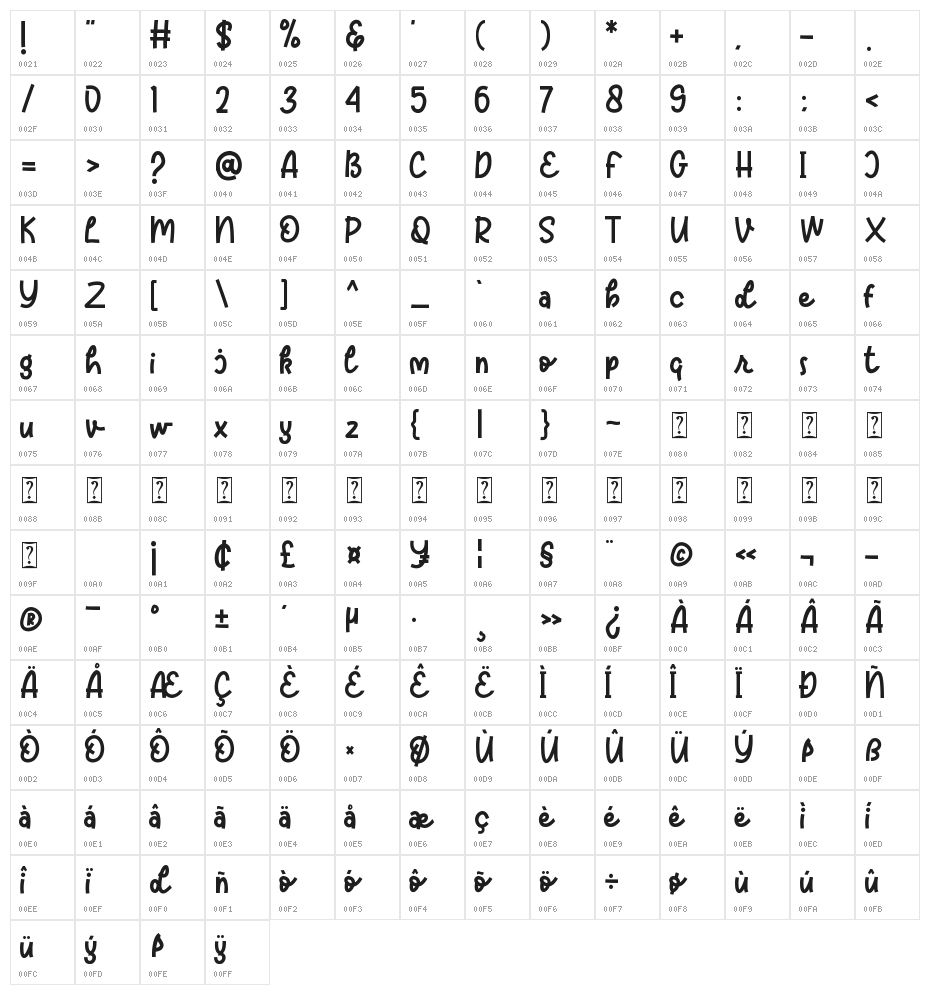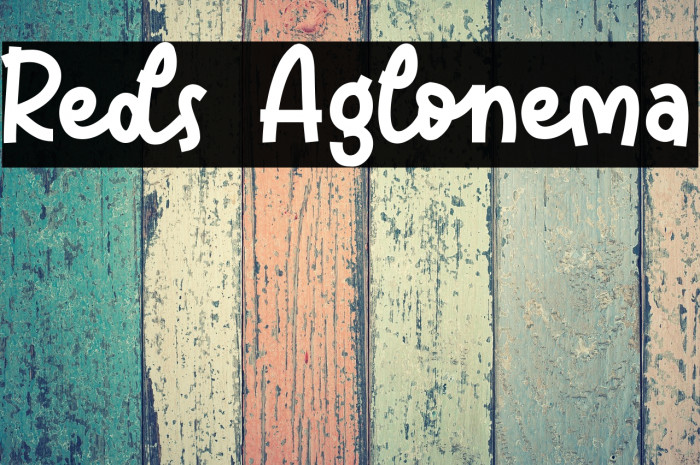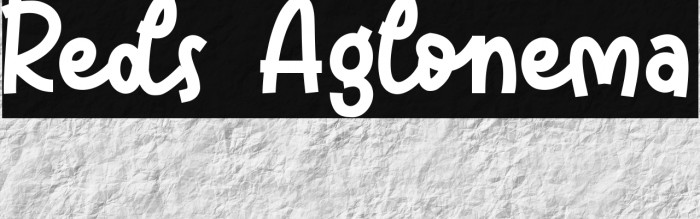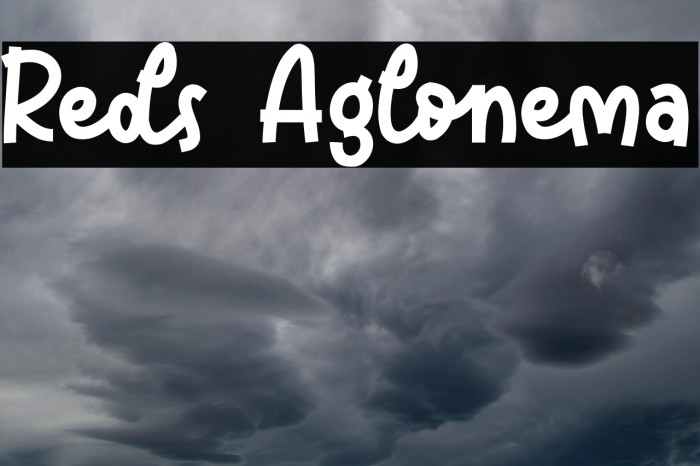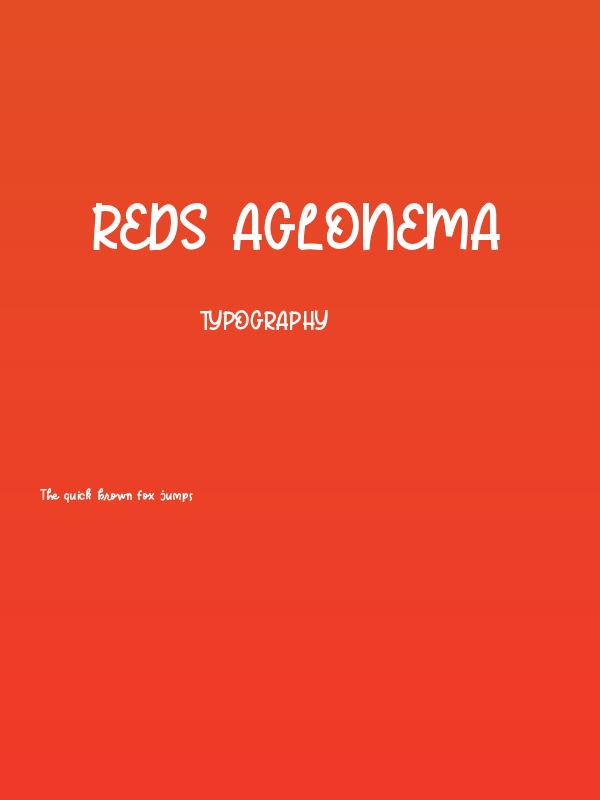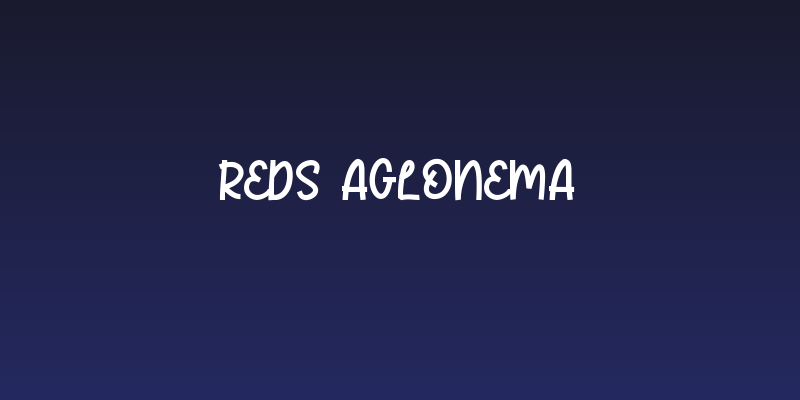
Reds Aglonema Font
Reds Aglonema Description
This font features a playful and whimsical design with a handwritten style. The characters are bold and rounded, giving a friendly and approachable feel. The uppercase letters have a slightly exaggerated height, while the lowercase letters maintain a consistent flow. The numbers and special characters are designed to match the overall playful aesthetic, making them suitable for informal and creative projects. The strokes are consistent in thickness, providing a uniform appearance across all characters. This font is ideal for projects that require a touch of fun and creativity.
| Proposed Projects | Ideal for children's books, greeting cards, playful branding, and creative posters. |